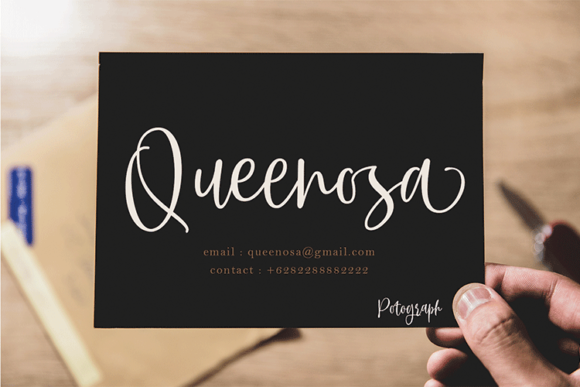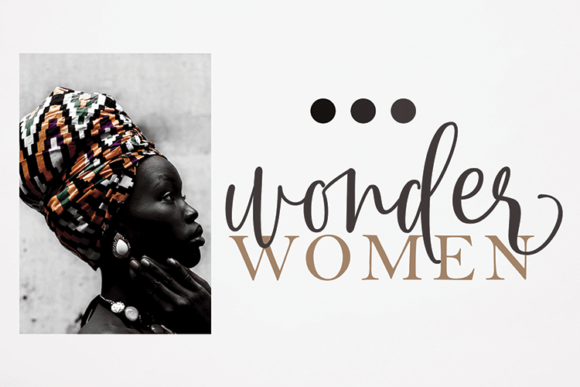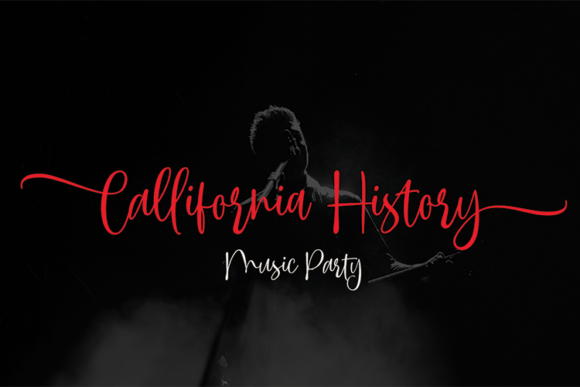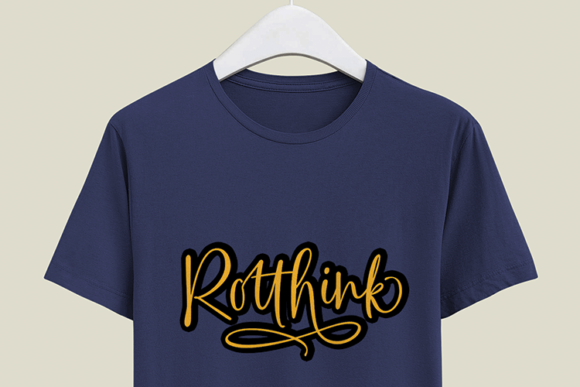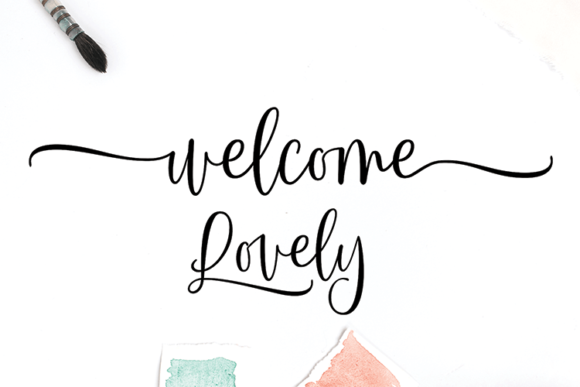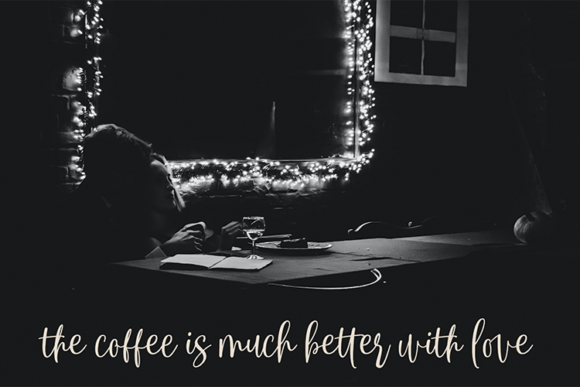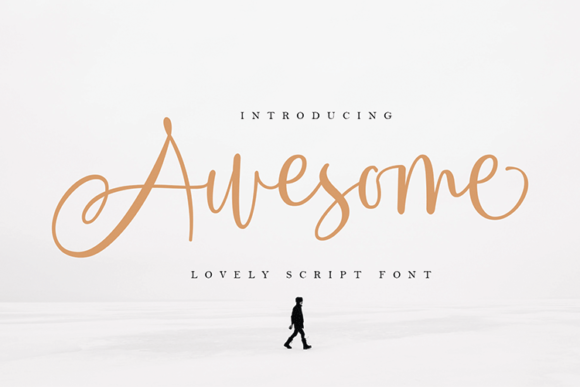
Introducing Awesome Duo Script Font: Elevate Your Designs with Elegance
In the world of typography, a font can make or break a design. For those seeking an elegant and contemporary script font that echoes the sophistication of classic calligraphy, look no further than the Awesome Duo Script Font. This beautifully crafted font is not only a feast for the eyes but also a versatile tool for designers and crafters aiming to add a touch of timeless elegance to their projects.
Unveiling the Elegance of Awesome Duo Script
Awesome Duo Script is more than just a font; it’s an experience. Inspired by the impeccable forms of traditional calligraphy, this font brings a contemporary atmosphere to the table, making it perfect for a wide range of design applications. Whether you’re working on wedding invitations, branding materials, packaging, or digital content, Awesome Duo Script offers the versatility and sophistication you need to make your project stand out.
PUA Encoding: Accessibility and Flexibility at Its Best
One of the standout features of Awesome Duo Script is its PUA (Private Use Area) encoding. This means that users can access all the glyphs and swashes easily, allowing for a high degree of customization and creativity. PUA encoding ensures that you can unlock the full potential of the font, making it easier to create unique and personalized designs. This feature is particularly beneficial for designers who want to experiment with different styles and flourishes without being limited by the font’s capabilities.
Key Features of Awesome Duo Script Font
- Elegant and Contemporary Design: A perfect blend of traditional calligraphy and modern aesthetics.
- PUA Encoded: Offers easy access to all glyphs and swashes for enhanced customization.
- Versatile: Suitable for a variety of design projects, from digital content to print materials.
- Impeccable Form: Inspired by timeless classic calligraphy, ensuring a sophisticated look.
- User-Friendly: Designed to be easy to use, even for those new to script fonts.
Applications of Awesome Duo Script
The applications of Awesome Duo Script are vast and varied. Here are a few ideas to get you started:
- Wedding and Event Stationery: Create beautiful invitations, save-the-date cards, and thank-you notes.
- Branding and Logo Design: Add a touch of elegance to your brand’s identity.
- Packaging: Elevate your product packaging with sophisticated typography.
- Digital Content: Enhance your website, blog, or social media graphics with stylish text.
- Art and Craft Projects: Perfect for journaling, scrapbooking, and other crafty endeavors.
Why Choose Awesome Duo Script?
In a sea of fonts, Awesome Duo Script stands out for its unique blend of classic elegance and modern flair. Its PUA encoding and versatile design make it an excellent choice for designers and crafters looking to add a professional touch to their work. Moreover, the font’s ease of use ensures that you can focus on the creative aspect of your project, rather than struggling with complicated typography.
Awesome Duo Script Font is a game-changer for anyone looking to infuse their designs with a sense of elegance and sophistication. Its contemporary yet classic appeal, combined with its practical features like PUA encoding, makes it an indispensable tool in your design arsenal. Whether you’re a seasoned designer or a crafting enthusiast, Awesome Duo Script is sure to elevate your projects to new heights of creativity and professionalism.